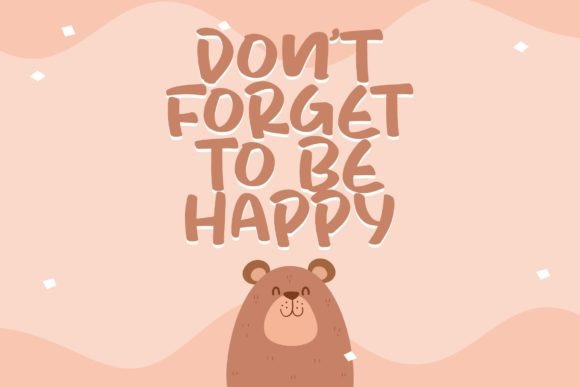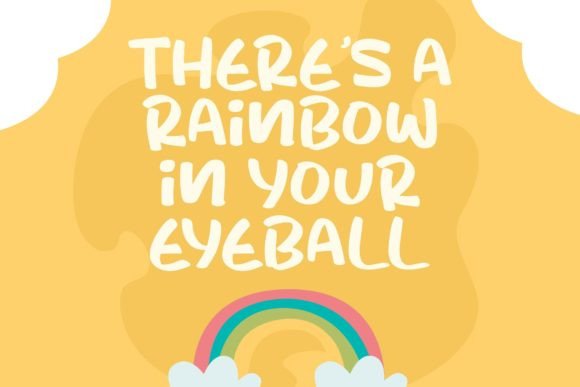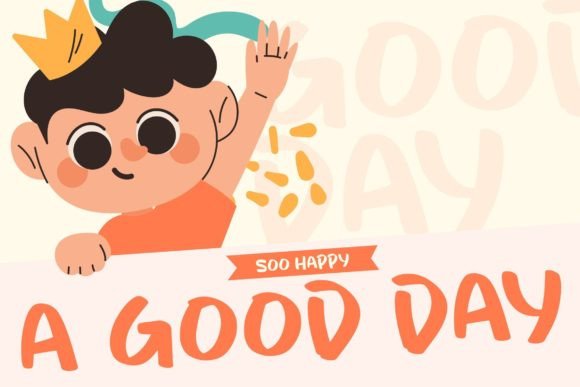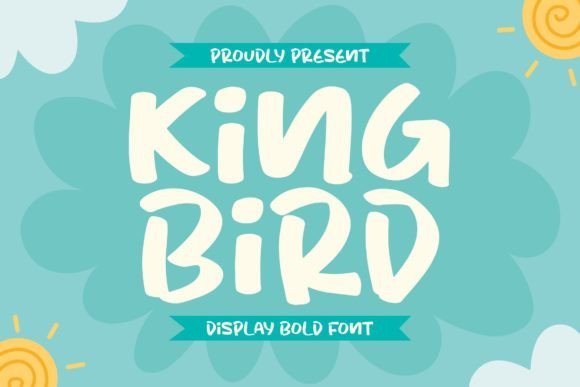
Introduction to King Bird Font
King Bird is bold and expressive.
Its thick and solid lines make it easy to read and its conservative bends aren’t overwhelming to the eyes A balanced fusion of playful and professional, there are a ton of design projects this font will be perfect for.
Key Features of King Bird Font
Why Choose King Bird Font?